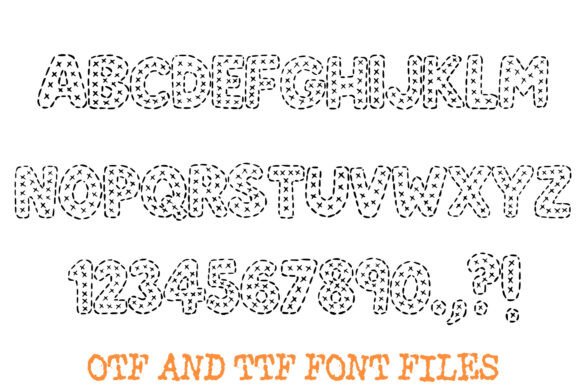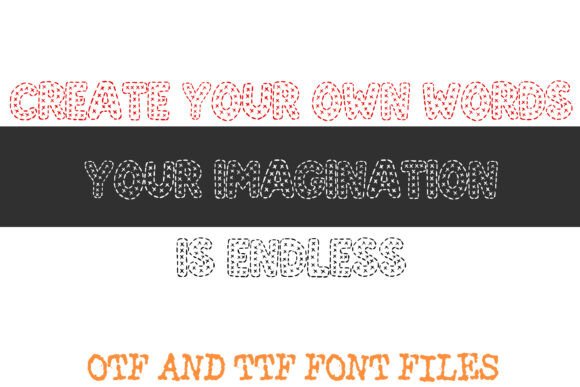
Introduction to Crafty Embroidery Stitch Font
Have you ever found yourself lost in a sea of fabric, threads, and needles, completely absorbed in the world of sewing and embroidery? For many crafty creatives, this is a familiar feeling – one that sparks joy and inspires new ideas. As you sit at your sewing machine or surrounded by embroidery hoops, a spark of creativity strikes, and you envision a design that combines your love of stitching with your passion for typography.
Enter the Crafty Embroidery Stitch Font, a playful and handmade decorative display typeface that brings your creative vision to life. With its unique, stitched style, this font adds a charming, crafty touch to any design, making it a valuable resource for designers looking to elevate their creative projects.
Key Features of Crafty Embroidery Stitch Font
- Unique combination of embroidery stitches and letters, perfect for creative projects and crafty designs.
- Perfect for crafting, scrapbooking, and other creative projects, adding a personal touch with custom embroidery stitch designs.
Honest Review: Crafty Embroidery Stitch Font
I recently had the chance to work with the Crafty Embroidery Stitch Font, and I must say it’s a fantastic design resource for any creative project. This free download is perfect for adding a touch of hand-stitched elegance to your designs.
One of the standout features of this font is its high-quality design, which includes intricate details and textures that make it perfect for embroidery and sewing projects. The transparent background allows for easy placement over any image or design, giving you complete control over the final look.
- High-quality design with intricate details and textures
- Perfect for embroidery and sewing projects
One limitation of the Crafty Embroidery Stitch Font is that it’s not suitable for large-scale text or headings, as the small size of the stitches can become difficult to read. ⚠️
Overall, I’m thoroughly impressed with the Crafty Embroidery Stitch Font. It’s a fantastic design resource for any creative project, and I highly recommend it to anyone looking to add a touch of hand-stitched elegance to their designs.
The Crafty Embroidery Stitch Font is perfect for a variety of design projects, including custom embroidery, DIY home decor, and creative scrapbooking. You can also use it to add a touch of whimsy to your social media graphics and blog posts.